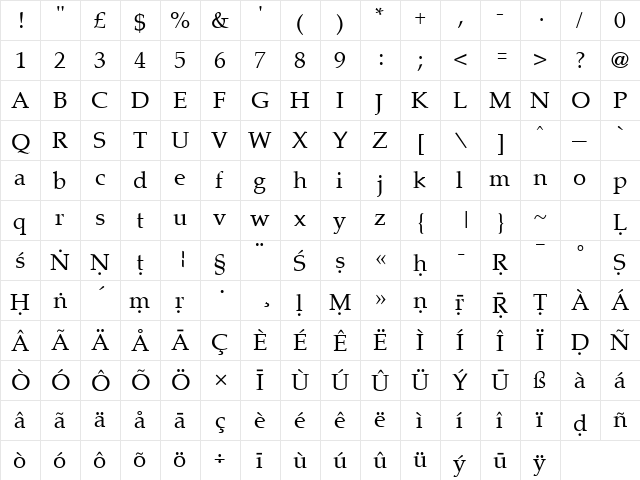
Skt Palermo Regular
| Designer | Diacritical marks added by Bhikkhu Pesala. |
Design Context for Skt Palermo Typeface
Skt Palermo offers clean, dependable letterforms without strong stylistic allegiance, making it a practical choice for designers who need flexibility.
Pro Tip: Use Skt Palermo in both headline and body roles to test its range before committing to a single application.